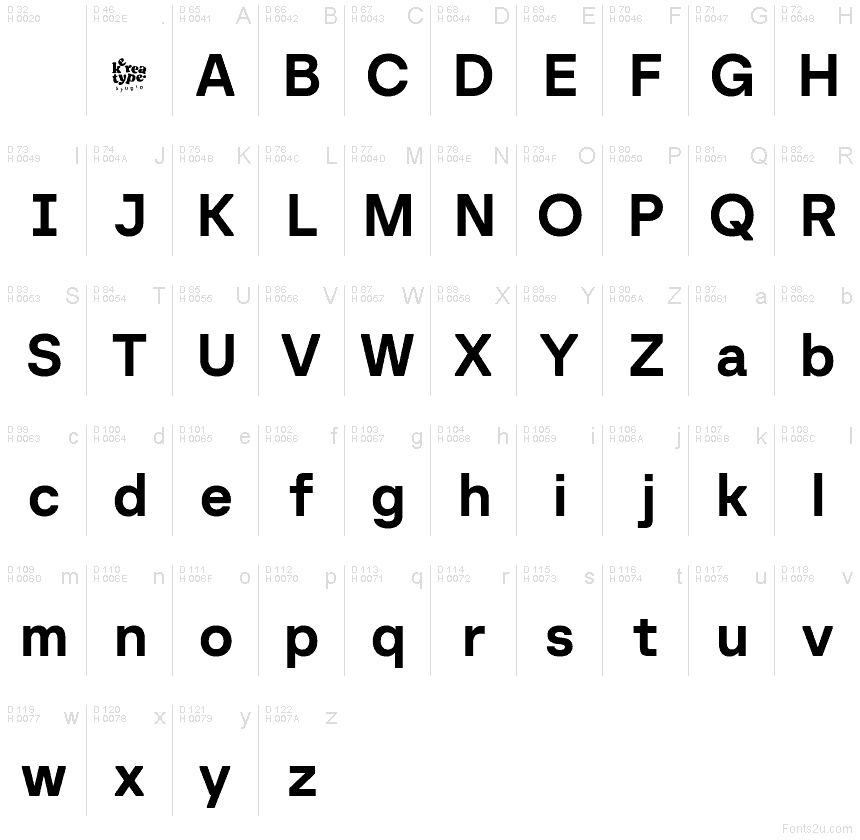
Baru Sans Demo Bold
Baru Sans Bold font by Kereatype Studio is a free sans serif font. Part of the Baru Sans family, it solves a classic challenge: you need a bold voice that’s strong but not shouty. Its even strokes, open counters, and generous curves create a clean, steady rhythm that holds up in small UI labels yet hits hard in big titles. The texture feels crisp and sturdy, giving headlines a confident, modern presence without crowding the line.
Using Baru Sans Bold, you’ll get reliable results for brand marks, app navigation, hero headlines, social ads, packaging, event posters, and signage. This free font carries weight while staying friendly, so short phrases scan fast and look consistent across sizes. Pair it with lighter weights from the Baru Sans family for body copy, and tighten the tracking a touch for punchy headlines.